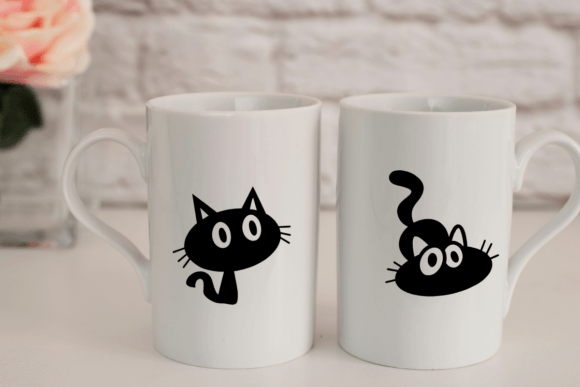
Goofy Cat Font
Goofy Cat is a dingbats font with a feline theme. This font can enhance your creative projects such as wedding invitations, DIY, crafts, decorations, logos, and many other creative ideas.